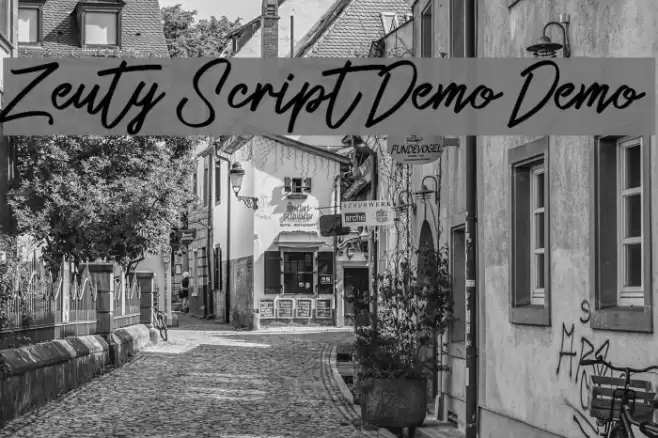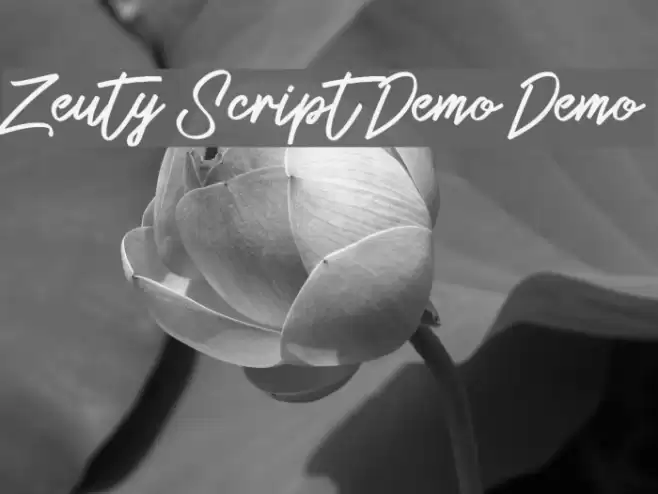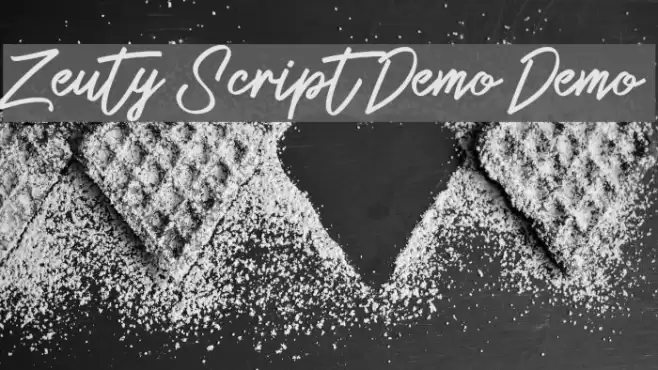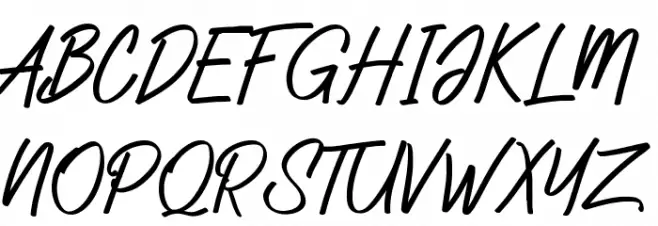
Zeuty Script Demo Demo Font
Zeuty Script Demo Demo Description
This font features a dynamic and fluid script style, characterized by its elegant and flowing letterforms. The strokes are smooth and connected, giving it a handwritten appearance that is both stylish and approachable. The uppercase letters are slightly more structured, while the lowercase letters exhibit a more casual and freeform style. This font is perfect for adding a personal touch to any design, with its graceful curves and artistic flair. The overall look is modern yet timeless, making it versatile for various applications.
A dynamic and fluid script font with elegant, flowing letterforms from Uncategorized fonts.
- Proposed Projects: Ideal for wedding invitations, greeting cards, branding, and social media graphics.
- Use Case: Logos, Headlines, Invitations